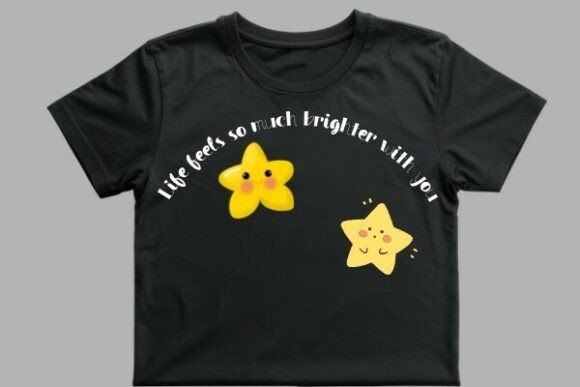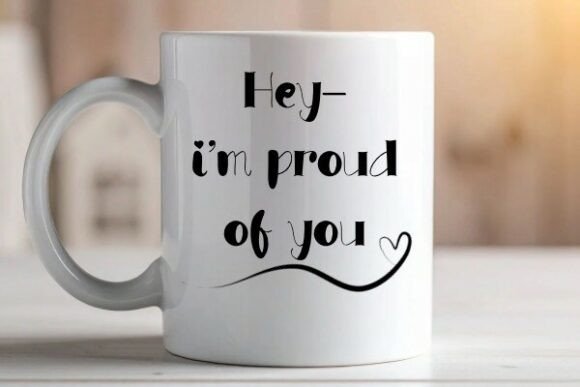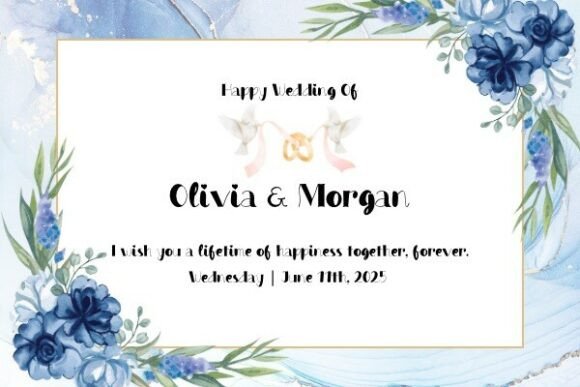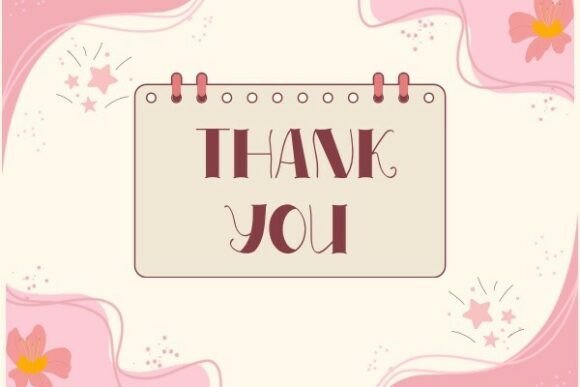
The Perfect Brush Stroke: Introducing Beatiful Font
As designers, we’ve all been there – staring at a blank canvas, struggling to bring our vision to life. It’s the moment when the perfect font can make all the difference. Imagine a handwritten font that’s as elegant as it is versatile, effortlessly adding a personal touch to your creations.
Enter Beatiful Font, a splendidly simple and uniquely designed handwritten font that’s poised to revolutionize the way you design. Whether you’re crafting a stylish t-shirt design or creating a personalized mug, Beatiful Font is the perfect companion to bring your artistic vision to life. This valuable addition to your design toolkit is sure to elevate your creations to new heights, making it a must-have for any designer looking to add a signature elegance to their work.
Beautiful Font Key Features
- Unique Characteristics: The font features a unique blend of modern and elegant design elements, making it perfect for creative and professional projects.
Beautiful Font Review
Overall, I have mixed feelings about this font. On one hand, it has some great features that make it a solid choice for many projects. ✨ The font is highly customizable, with a wide range of options for adjusting the size, weight, and style. This makes it easy to tailor the font to fit the specific needs of your project.
Another advantage of Beautiful Font is its excellent legibility. ✨ The font is designed to be clear and easy to read, even at small sizes. This makes it a great choice for applications where readability is crucial, such as in documentation or instructional materials.
Here are some specific pros and cons:
- Excellent legibility
Overall, I would give Beautiful Font 3 out of 5 stars. While it has some great features and is a solid choice for many projects, its limitations may make it less appealing to some users.
Getting the Most Out of Beautiful Font
To get the most out of Beautiful Font, consider the following tips:
- Use it to create eye-catching headings and titles.
- Pair it with other creative fonts to add visual interest.
Beautiful Font is commonly used in:
- Graphic design projects, such as logos and branding materials.
- Web design projects, such as website headers and footers.
- Print design projects, such as business cards and brochures.